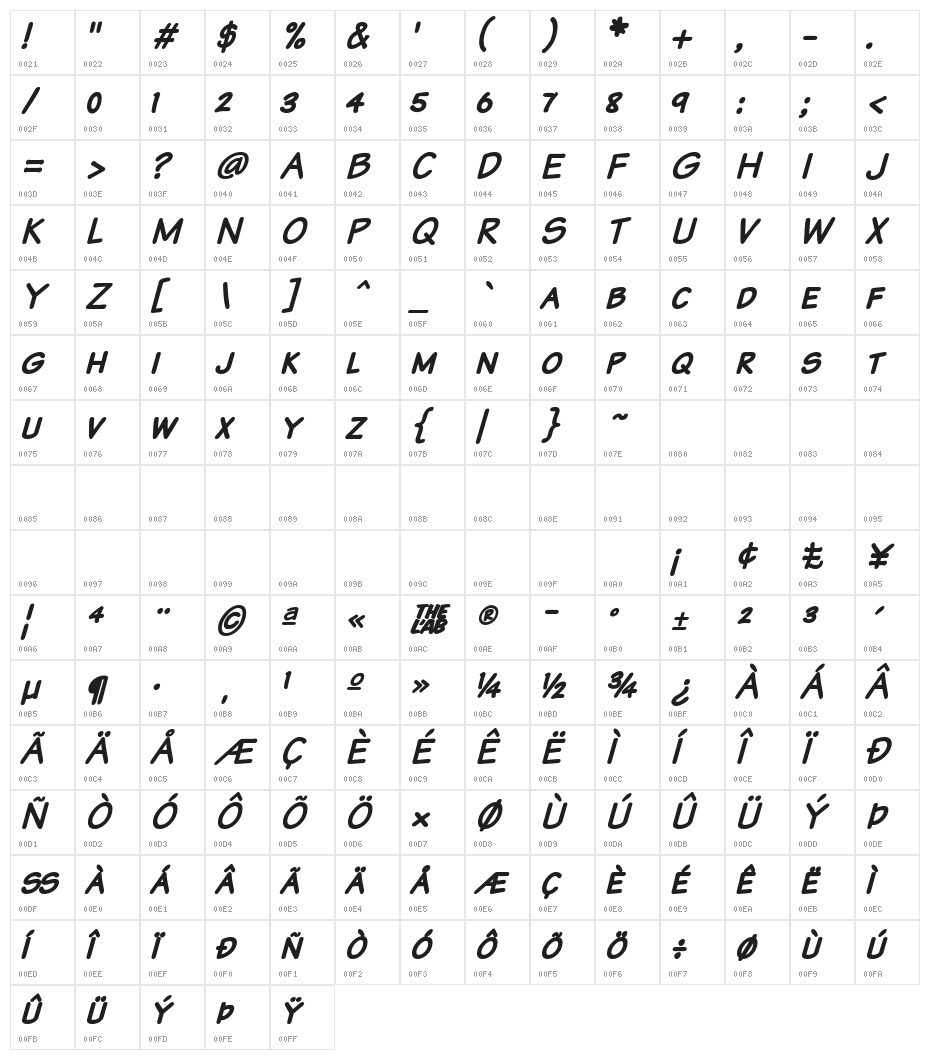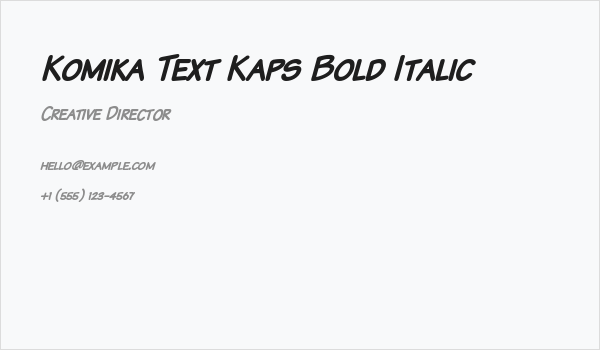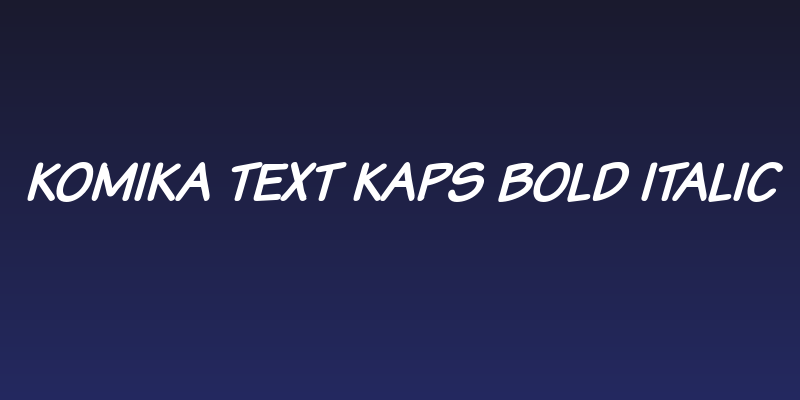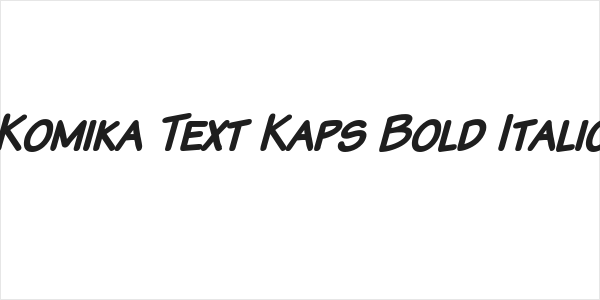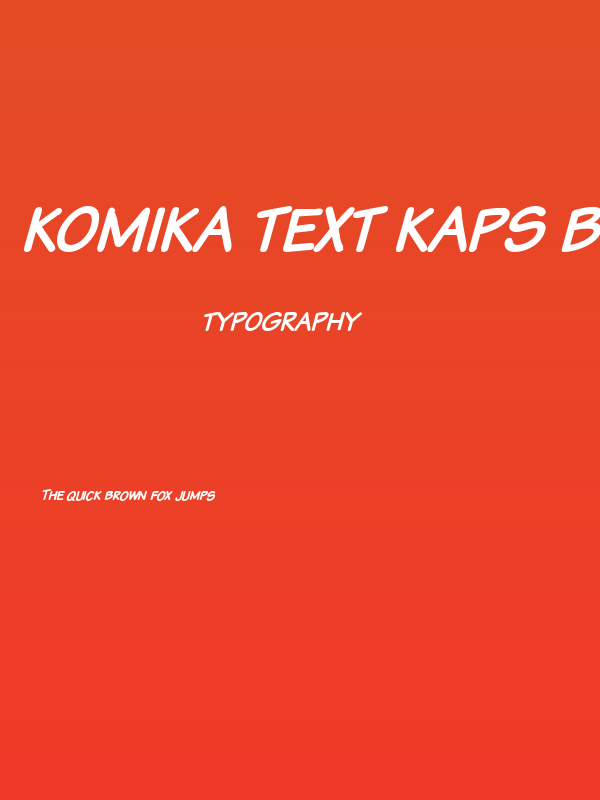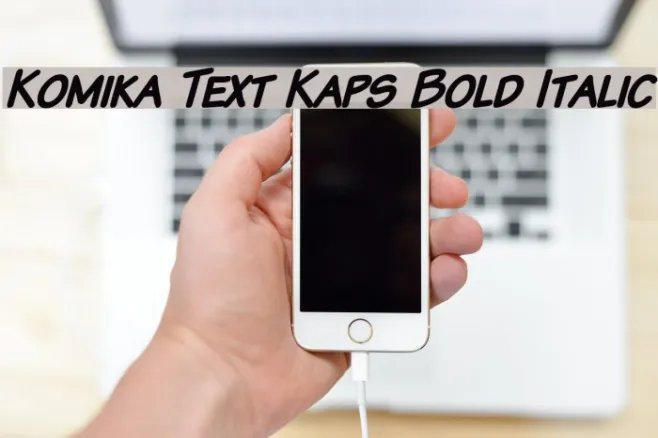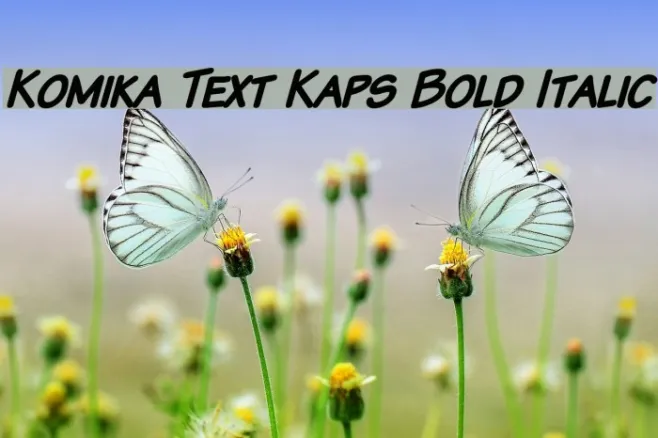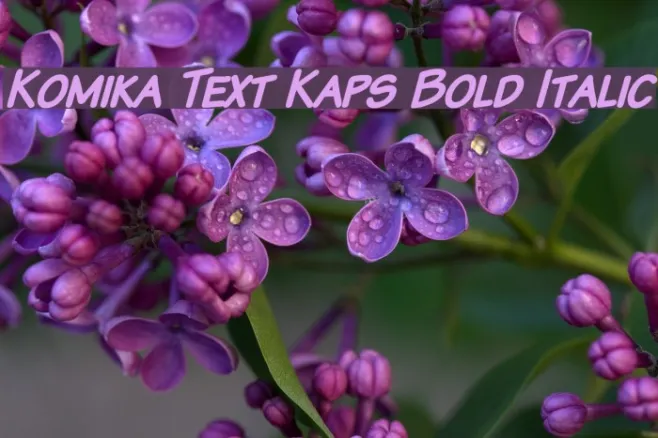
Komika Text Kaps Bold Italic Font
Komika Text Kaps Bold Italic Description
This font features a bold and italicized style with a playful and dynamic appearance. The characters are slightly slanted, giving a sense of motion and energy. The strokes are thick and rounded, contributing to a friendly and approachable look. The uppercase and lowercase letters maintain a consistent style, with smooth curves and a uniform weight. The numbers and special characters are designed to match the overall aesthetic, ensuring a cohesive appearance across all glyphs. This font is well-suited for projects that require a lively and informal touch.
| Proposed Projects | Ideal for comic books, children's books, playful branding, and casual posters. |